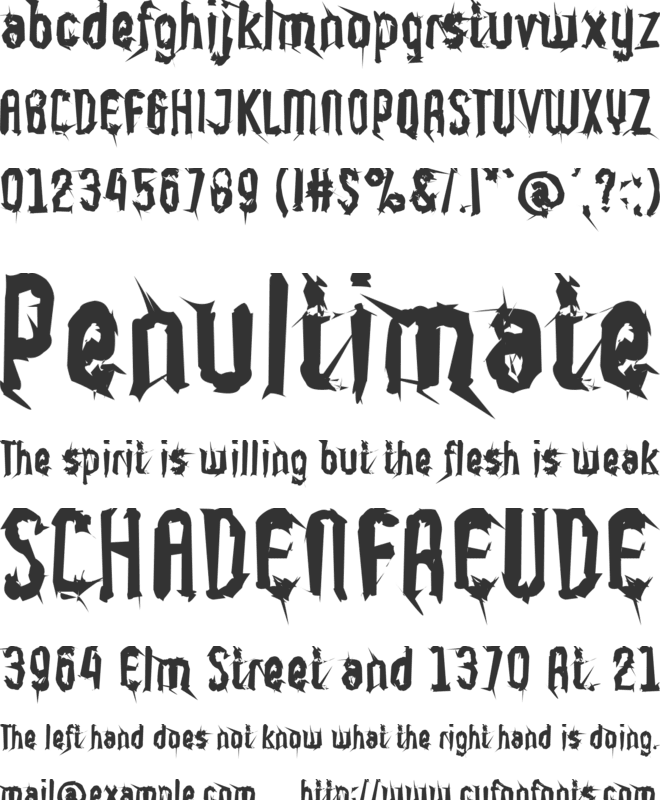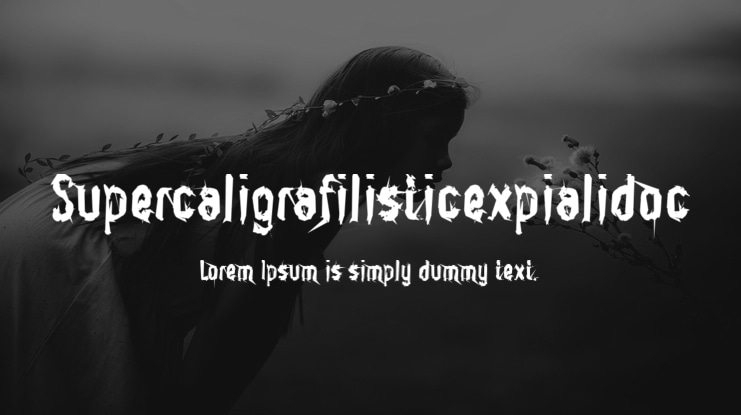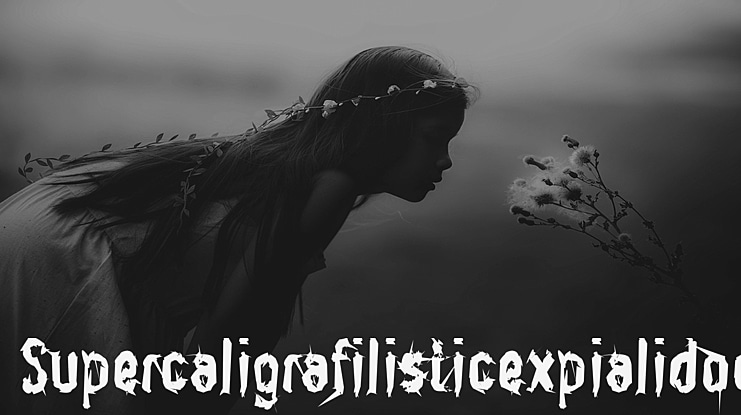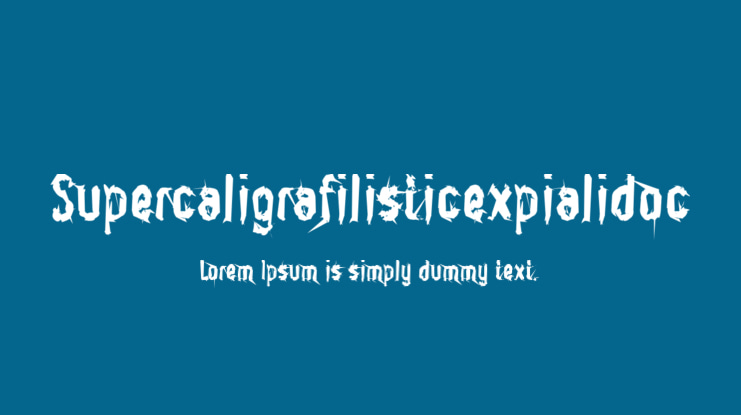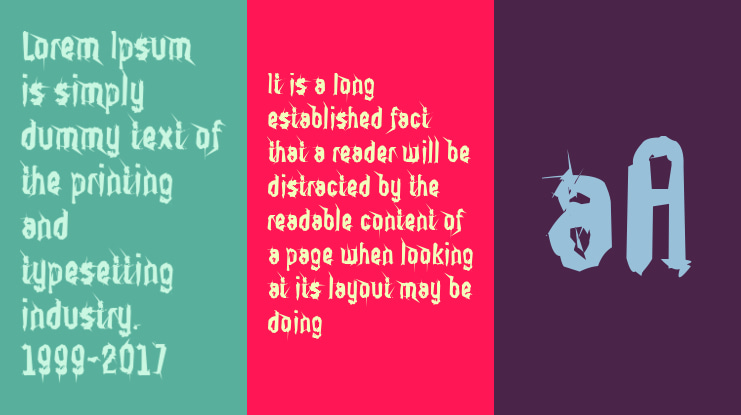
Supercaligrafilisticexpialidoc Font
Levi Szekeres
A font combination between the old german gothic and a creepy love letter scratched in wood with a Swiss pocket knife. Even if this looks kinda messy, the kerning and the sizes/ratios were treated with much care. The name is a shift from the Mary Poppins popular "supercalifragilisticexpialidocious" song. Just to add some "pink" to it.